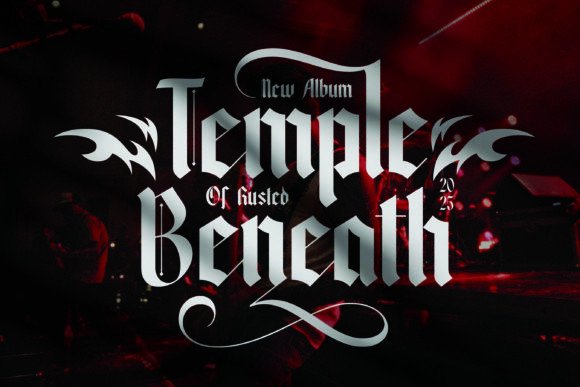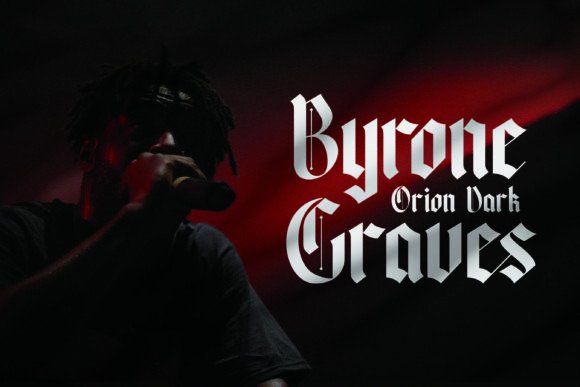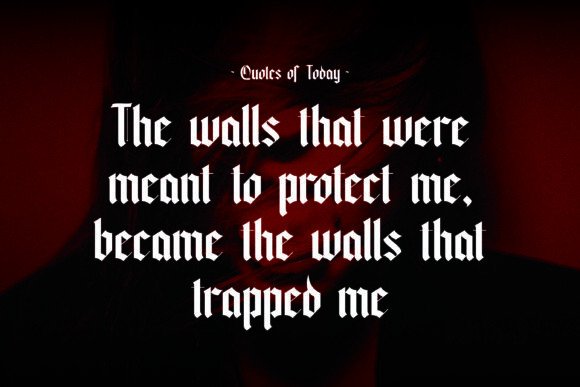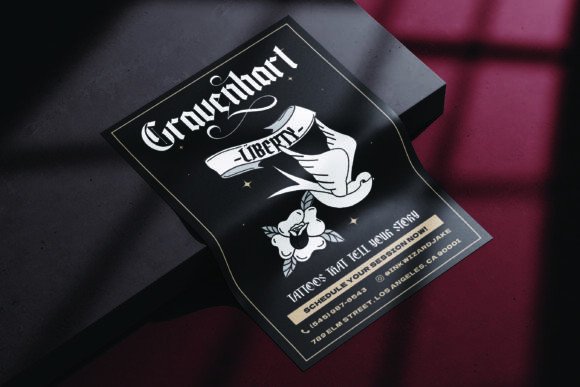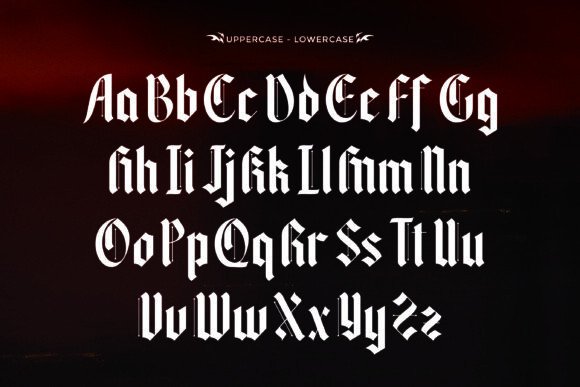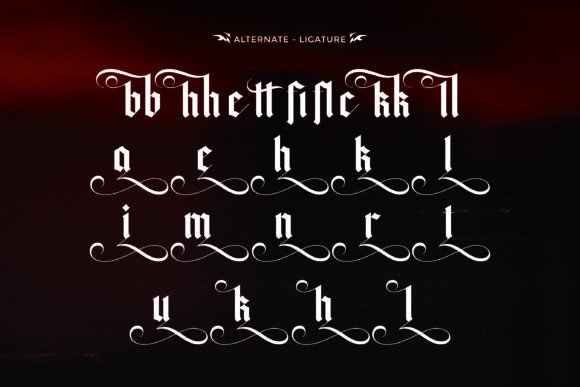
Unleash the Power of Gothic Elegance with Blacklottery Font
In the world of typography, few fonts evoke the same level of drama and sophistication as Blacklottery. This bold blackletter typeface is designed to bring a strong gothic feel to your designs, with dramatic strokes and intricate curves that command attention. Inspired by medieval lettering traditions, Blacklottery captures both power and elegance, making it the perfect choice for designers and crafters looking to add a touch of darkness and artistic flair to their work.
The Inspiration Behind Blacklottery
Blacklottery’s design is rooted in the rich tradition of medieval lettering, where scribes and artisans painstakingly crafted intricate letterforms by hand. This font’s bold, dramatic strokes and elegant curves pay homage to the skilled craftsmanship of the past, while also injecting a modern twist to make it relevant for contemporary designs. Whether you’re creating a logo, branding materials, or personal projects, Blacklottery’s unique blend of power and sophistication is sure to make a lasting impression.
Key Features of Blacklottery Font
- Bold Blackletter Typeface: Blacklottery’s bold, blackletter design makes it perfect for creating striking headlines, logos, and titles that demand attention.
- Dramatic Strokes and Intricate Curves: The font’s dramatic strokes and intricate curves add a level of elegance and sophistication, making it ideal for designs that require a touch of luxury and refinement.
- Alternate Characters and Ligatures: Blacklottery comes with a range of alternate characters and stylish ligatures, allowing you to add a unique touch to your designs and create a truly distinctive look.
Perfect for Dark and Artistic Designs
Blacklottery’s dramatic, gothic-inspired design makes it a natural fit for dark and artistic designs. Whether you’re creating a logo for a heavy metal band, designing a tattoo, or crafting vintage-inspired branding materials, Blacklottery’s bold, elegant curves and intricate details will add a touch of sophistication and edge to your work.
Use Cases for Blacklottery Font
- Band Logos: Blacklottery’s bold, gothic design makes it perfect for creating striking band logos that capture the energy and intensity of heavy music.
- Tattoos: The font’s elegant curves and intricate details make it a popular choice for tattoo designs, adding a touch of sophistication and artistry to body art.
- Vintage-Inspired Branding: Blacklottery’s medieval-inspired design makes it ideal for creating vintage-inspired branding materials, such as logos, packaging, and advertising.
Tips for Using Blacklottery Font
- Experiment with Alternate Characters: Blacklottery’s alternate characters and ligatures offer a range of creative possibilities – experiment with different combinations to create a unique look.
- Pair with Contrasting Fonts: Blacklottery’s bold design makes it a great choice for pairing with contrasting fonts – try pairing it with a clean, sans-serif font to create visual interest.
- Use for Headlines and Titles: Blacklottery’s dramatic design makes it perfect for headlines and titles – use it to create striking headings that capture attention.
Blacklottery font is a powerful tool for designers and crafters looking to add a touch of gothic elegance and sophistication to their work. With its bold, dramatic strokes and intricate curves, this font is perfect for creating striking designs that command attention. Whether you’re creating a logo, branding materials, or personal projects, Blacklottery’s unique blend of power and elegance makes it an excellent choice. So why wait? Unleash the power of Blacklottery font in your designs today and discover a world of creative possibilities!